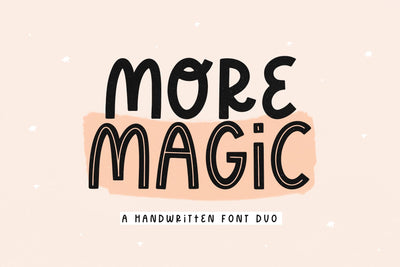
More Magic - Handwritten Font
More Magic is a cute hand lettered - all caps font.
There are two fonts included - a solid version and a "lined" version.
This font is especially perfect for instagram quotes, procreate designs and prints.
More Magic can also be used for shirts, svg designs, cricut projects, posters, branding, logos, invitations, planner prints, and more!